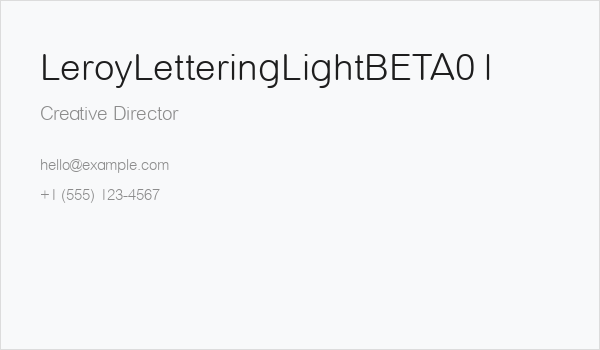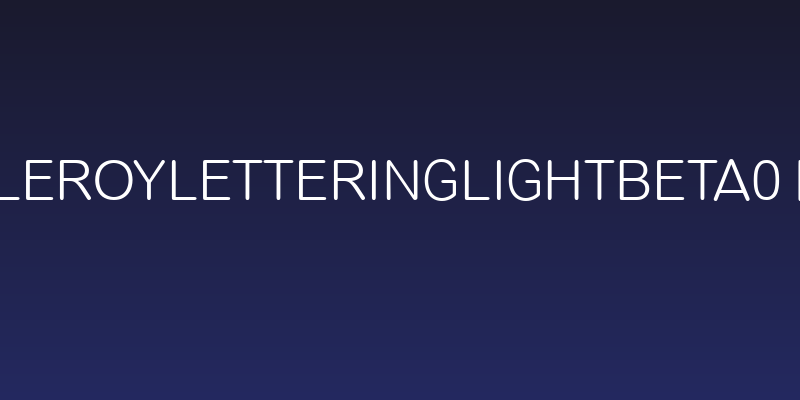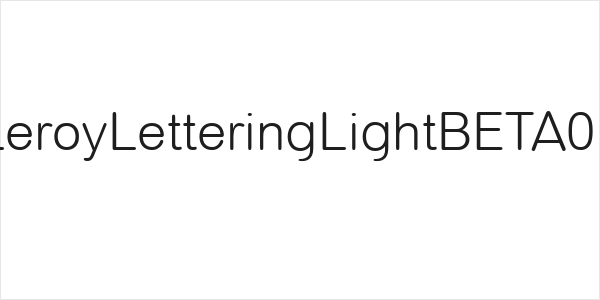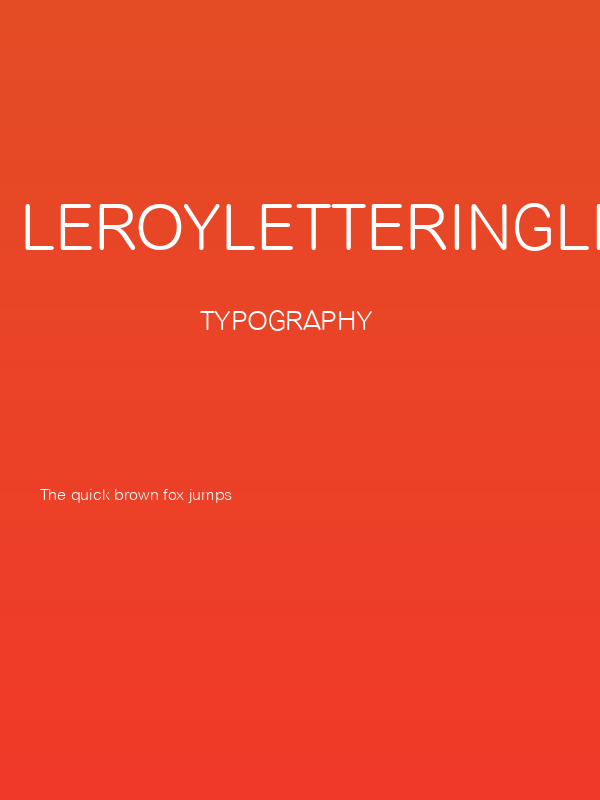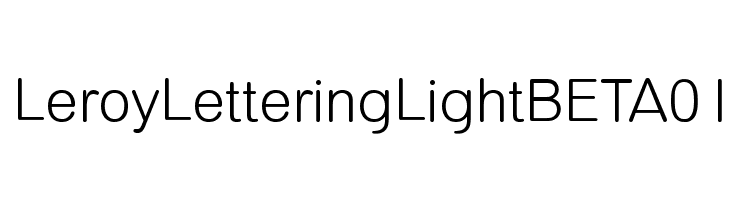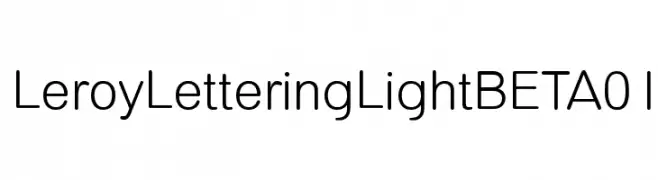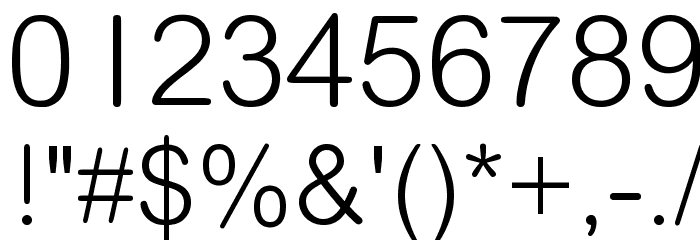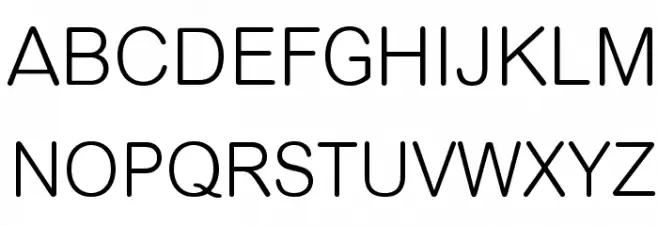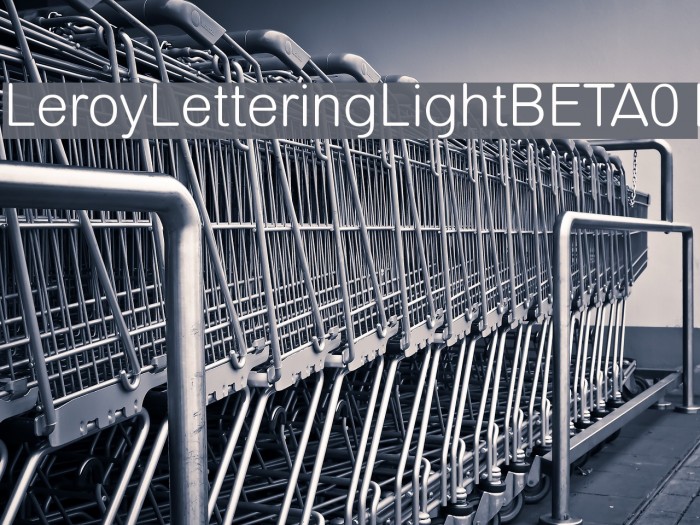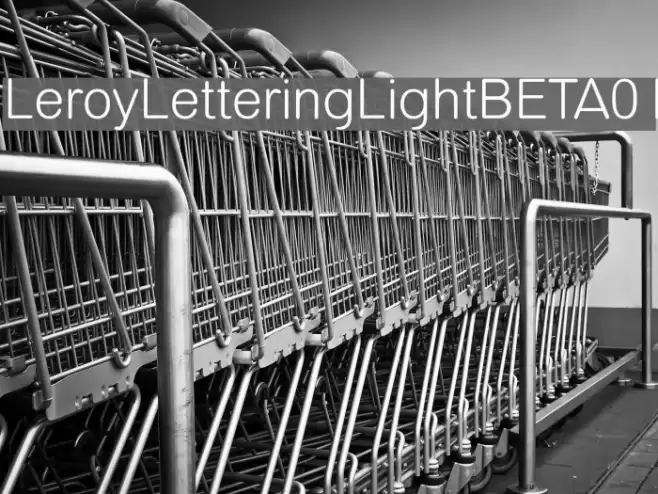
LeroyLetteringLightBETA01 Font
LeroyLetteringLightBETA01 Description
This font features a clean and modern sans-serif style with a geometric structure. The characters are evenly spaced, providing a balanced and harmonious appearance. The uppercase letters are bold and assertive, while the lowercase letters maintain a consistent and smooth flow. The numerals are clear and legible, making them suitable for various applications. Special characters are designed with simplicity and clarity in mind, ensuring they complement the overall aesthetic. This font's minimalistic design makes it versatile for both digital and print media.
| Use Case | Headlines, Body text, Logos |
| Proposed Projects | Ideal for branding, web design, advertising, and editorial layouts. |